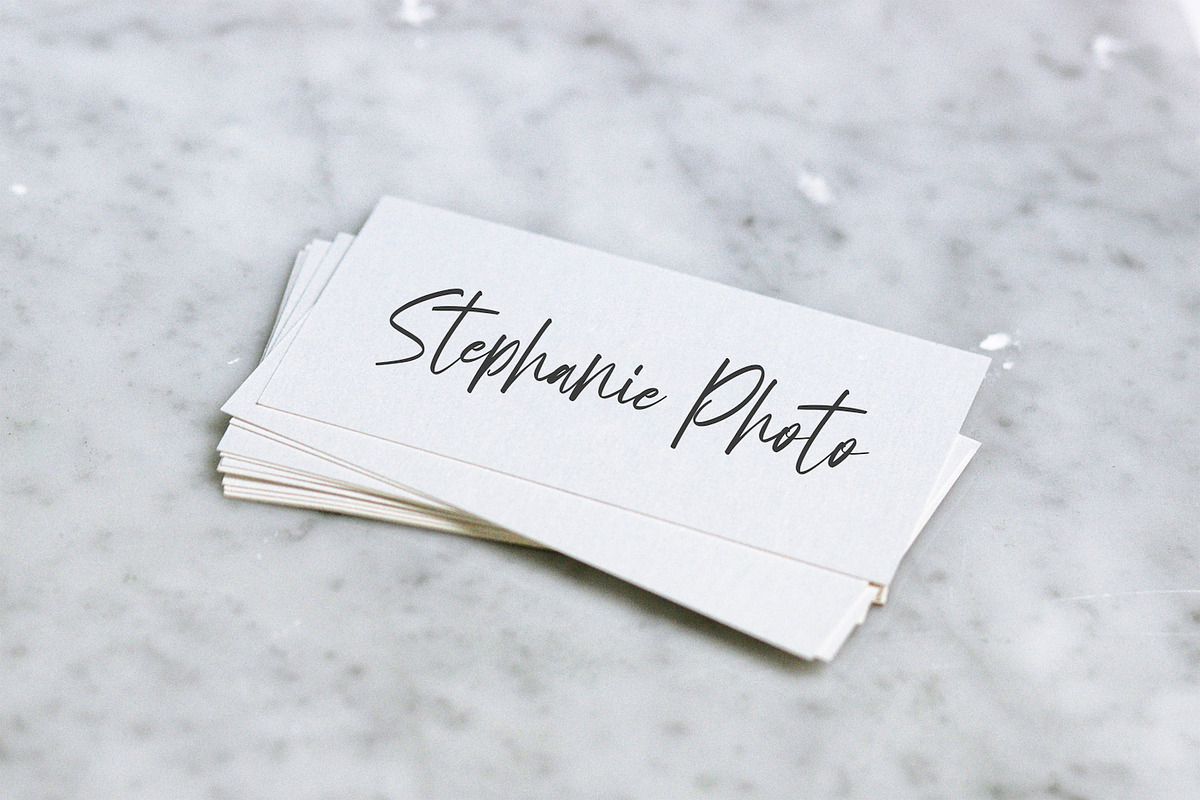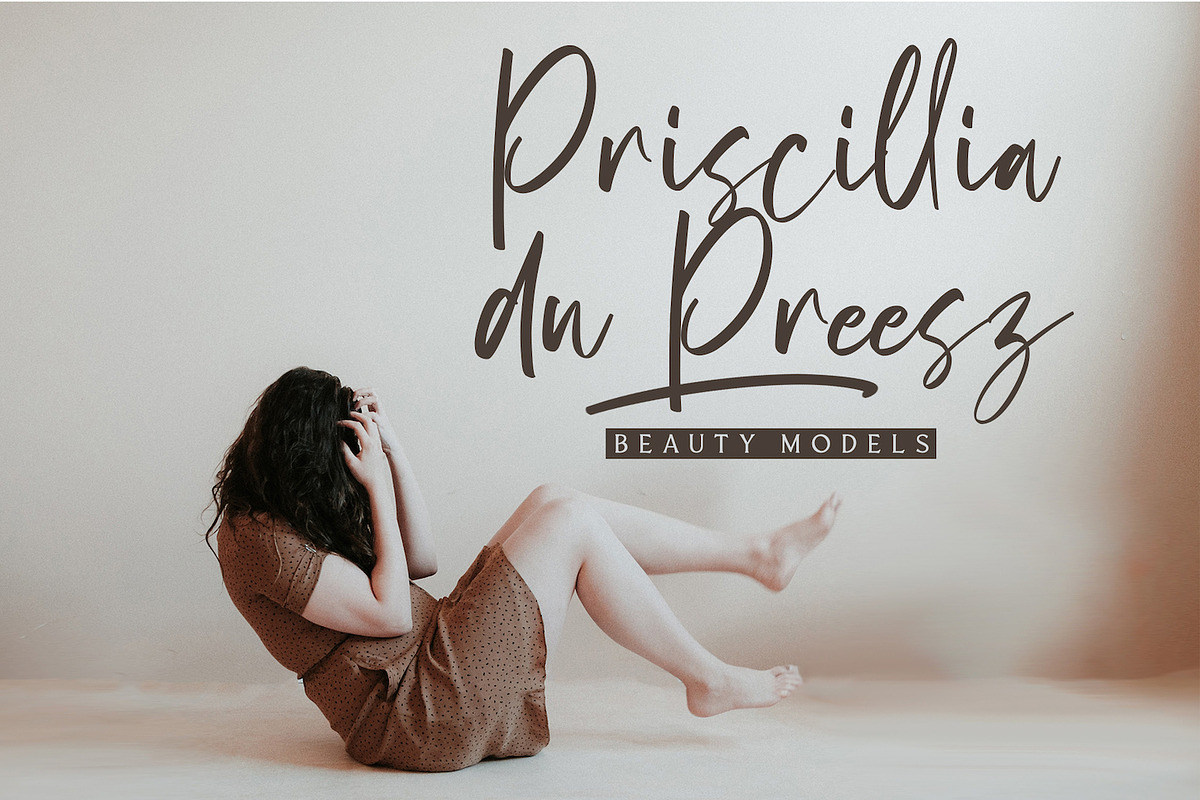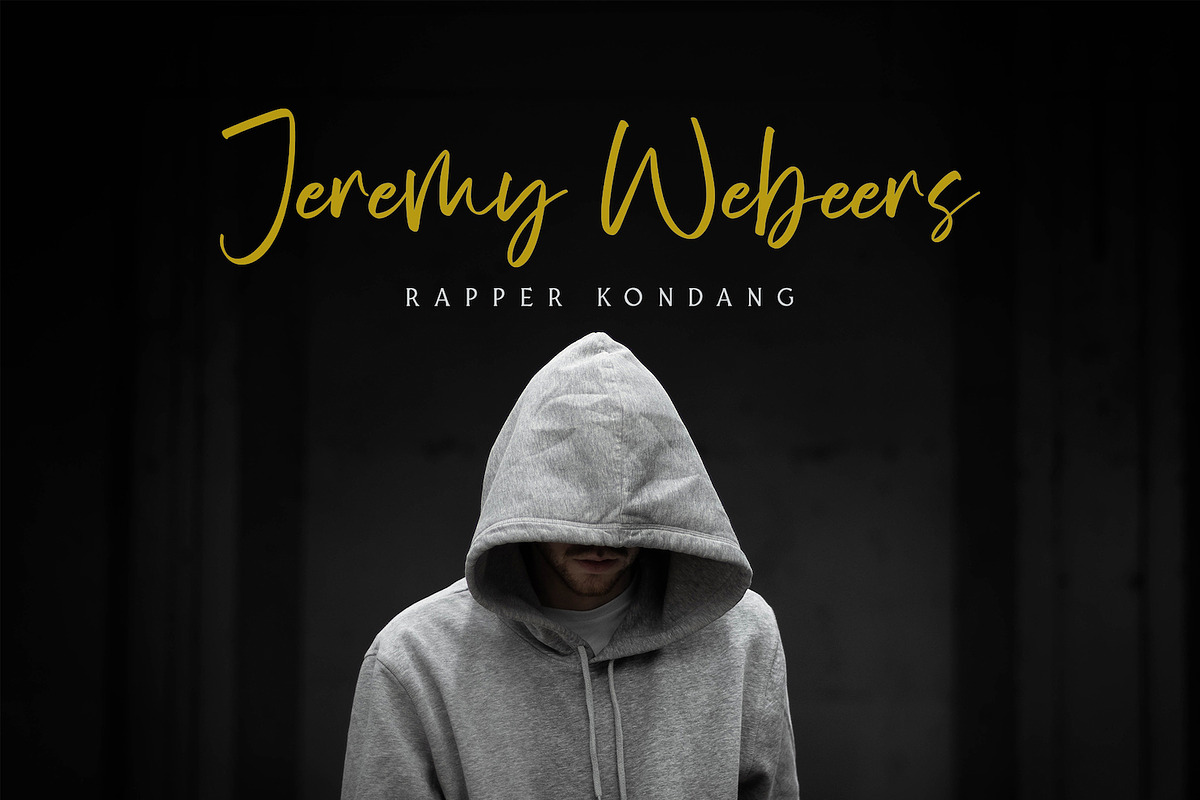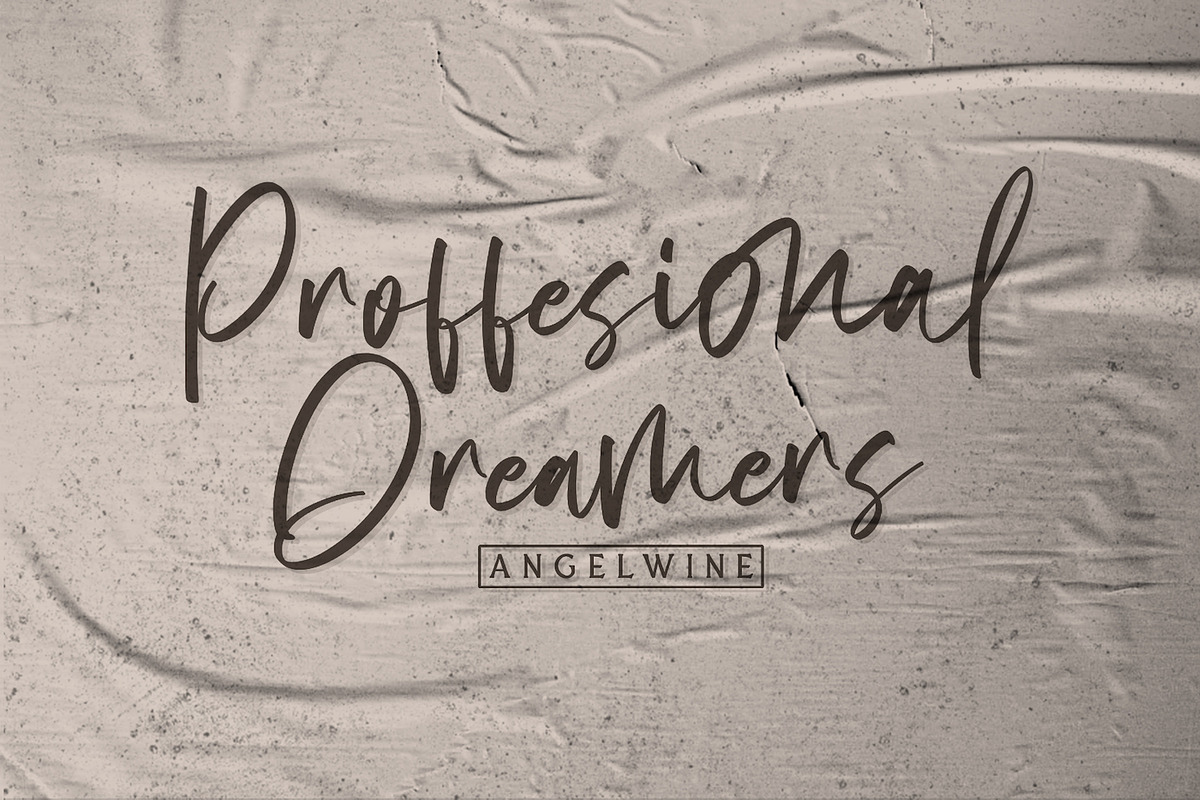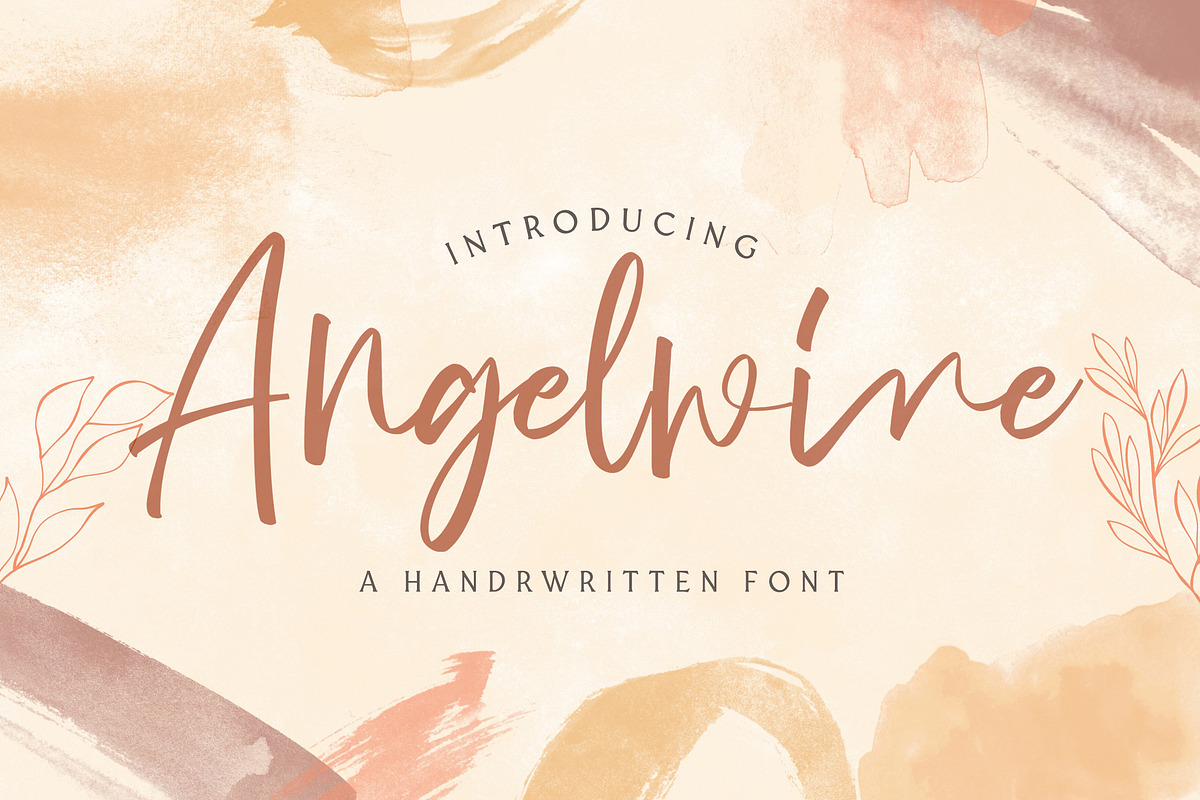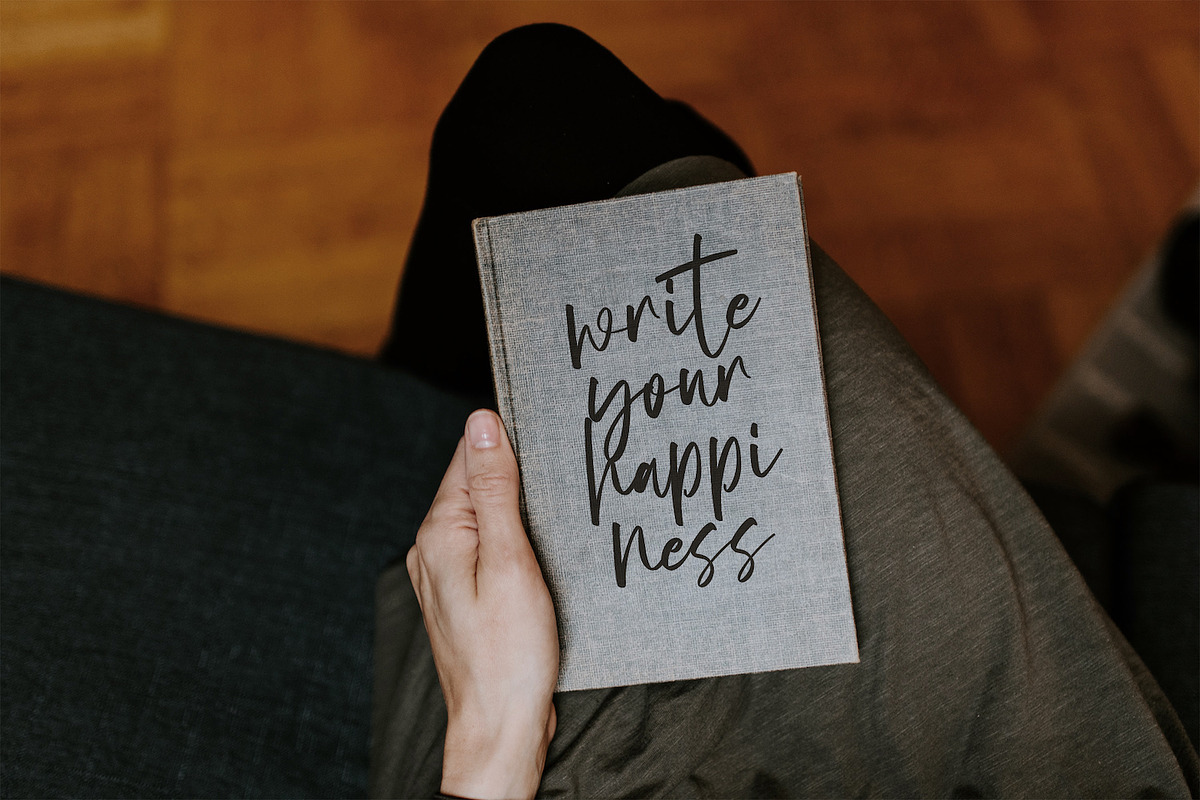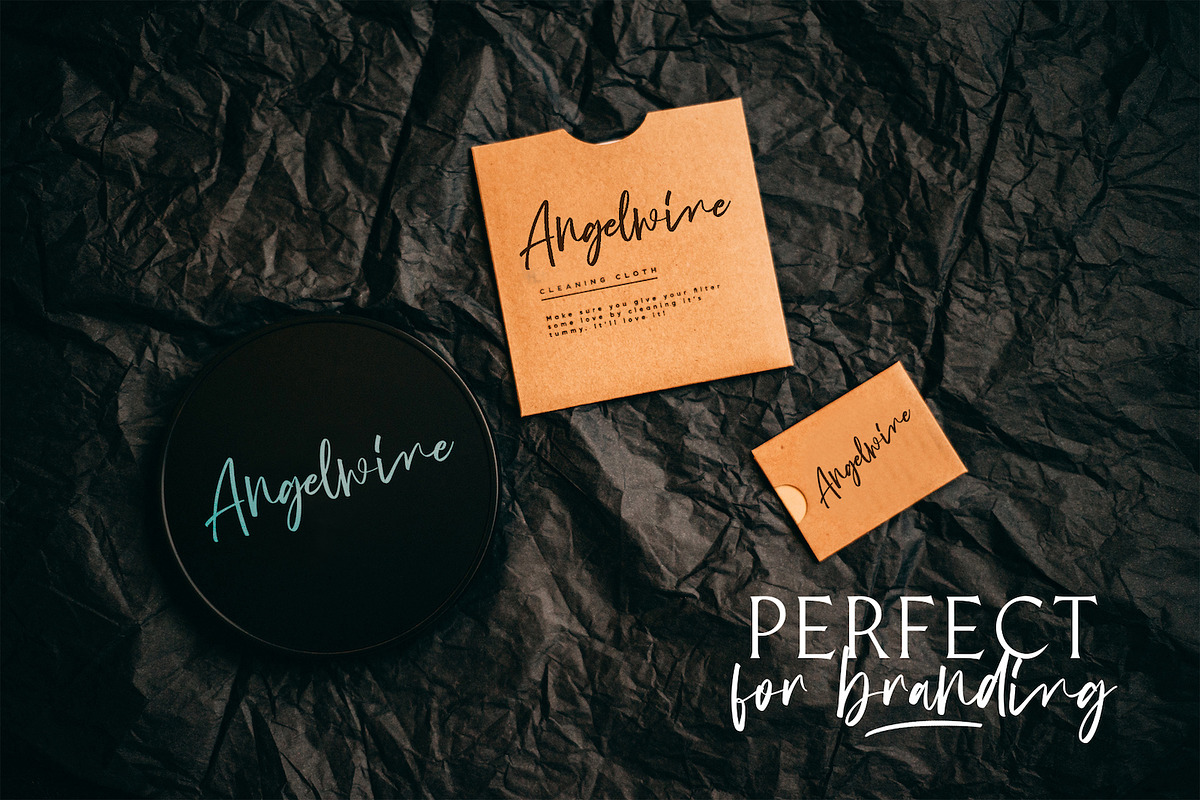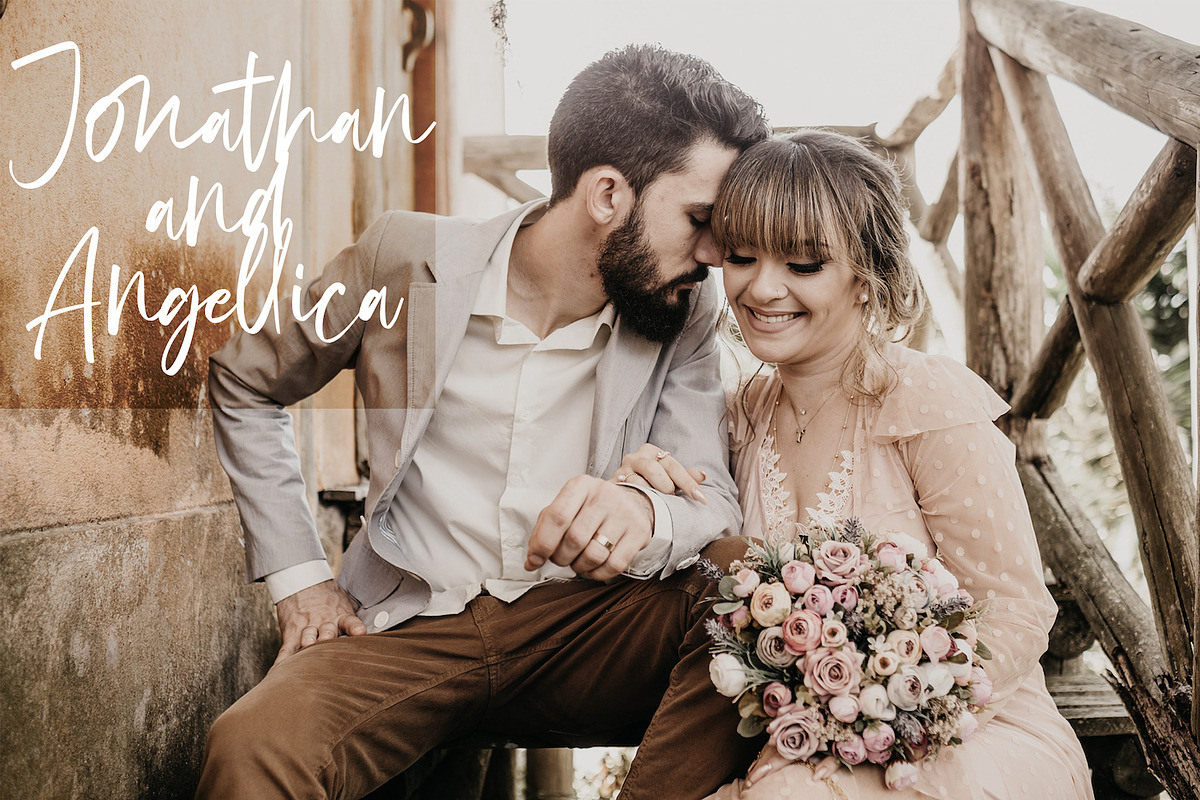
Angelwine - Handwritten Font
Introducing Angelwine - Handwritten Font
Angelwine is a Script Font with Handwritten Style. The Angelwine font made with digital brush pen strokes that making this font look authentic. This font is perfect for fashion brand, wedding invitation, business card, logo brand, signature, and then calligraphy.
- This Font contains Classy, Elegant, Creative, Cool and has a Unique Concept.
Why Angelwine - Handwritten Font is worth a look